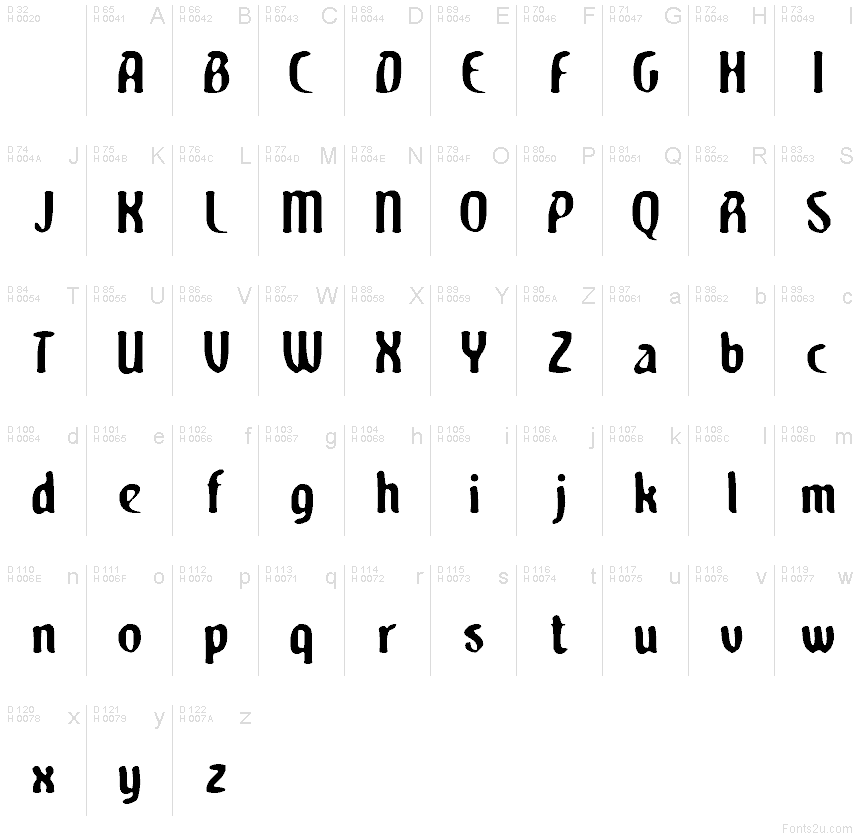
CS Slacker Drawn font by Craft Supply Co. leans into its hand-crafted wobble, with inky, tapering strokes and softly dented edges that feel brushed, not built. Part of the CS Slacker family, it’s a free bold retro display font that swings between chunky curves and quick, lively flicks—giving headlines a loose, human rhythm without losing legibility.
This free font shines on gig posters, surf or skate branding, coffee packaging, craft market signage, album covers, and punchy social headers. Using CS Slacker Drawn, let letters breathe at larger sizes and nudge tracking a touch for airflow. For body copy, pair it with a clean, neutral grotesk to keep the spotlight on those juicy, hand-drawn forms.